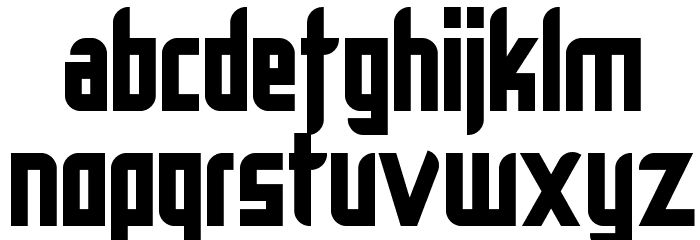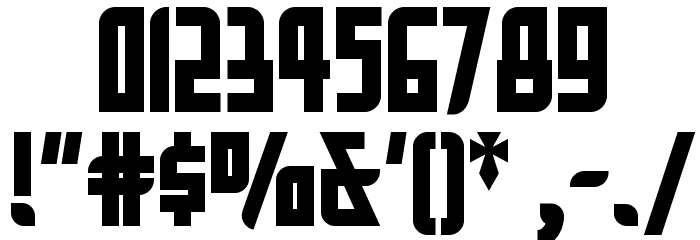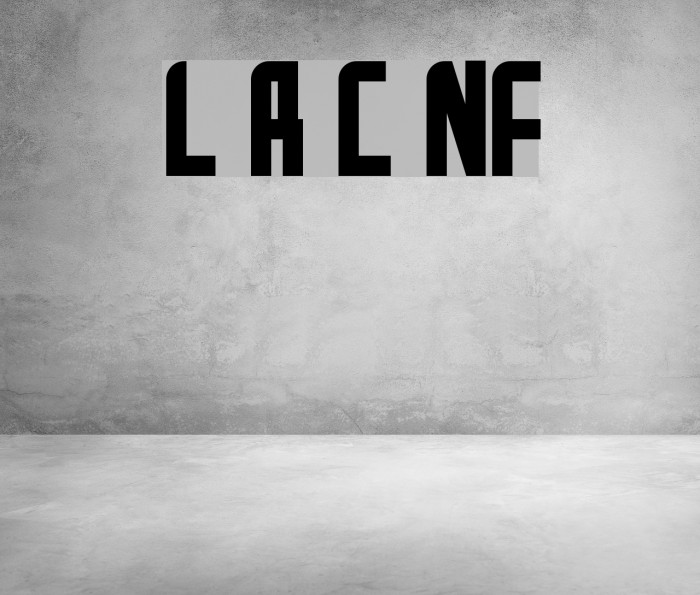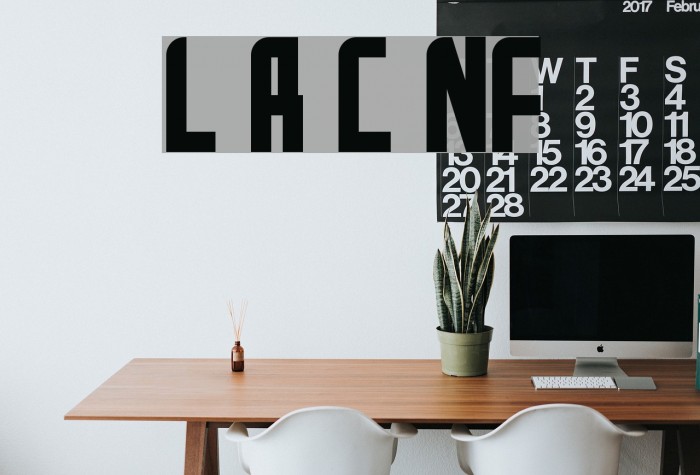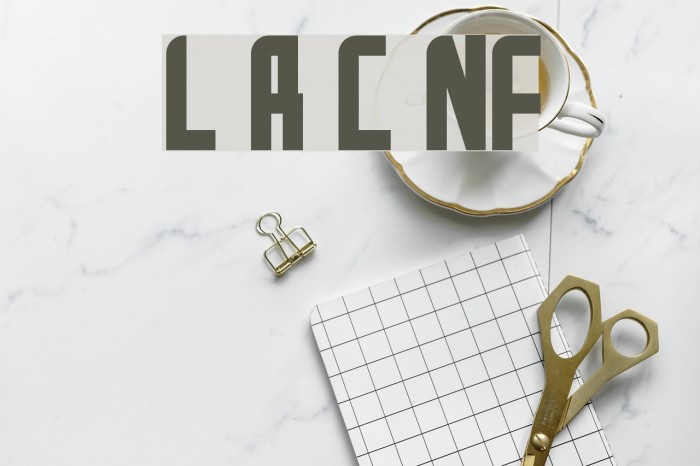
La Reyna Catalina NF Font
This font features a bold and geometric design with strong, angular lines and a modern aesthetic. The uppercase letters are particularly striking, with a blocky appearance that commands attention. The lowercase letters maintain the same boldness, ensuring consistency throughout the typeface. Numbers and special characters are designed with the same geometric precision, making them highly legible and visually appealing. The overall style is reminiscent of retro-futuristic designs, combining elements of both vintage and modern typography. This font is ideal for projects that require a strong visual impact, such as posters, headlines, and branding materials.
A bold, geometric font with a modern, retro-futuristic style.
- Proposed Projects: Ideal for posters, headlines, branding, and any project needing a strong visual impact.
- Overall Style: Modern, Retro-Futuristic
- Use Case: Headlines, Posters, Branding